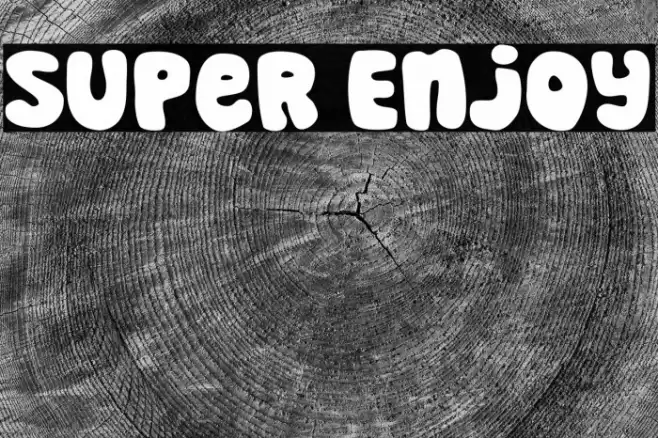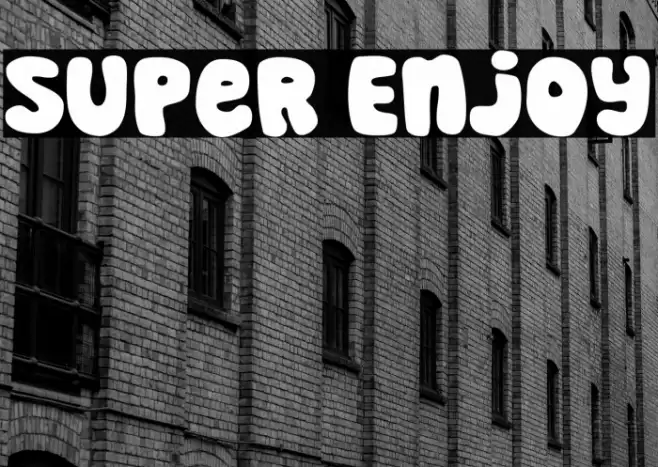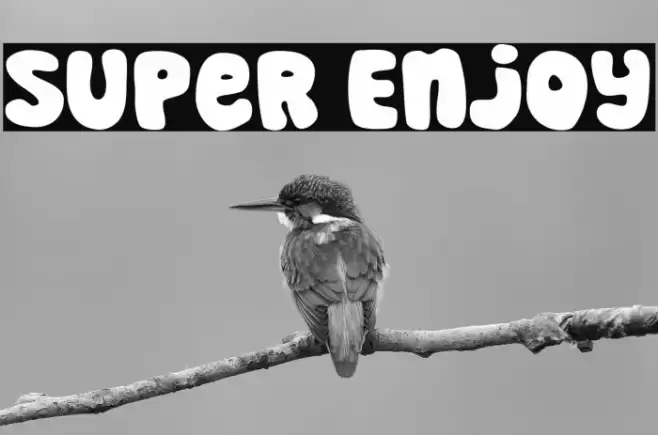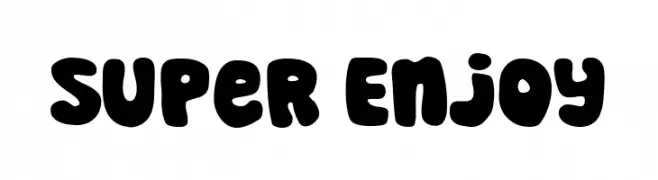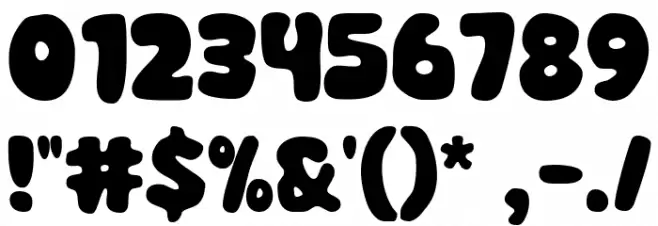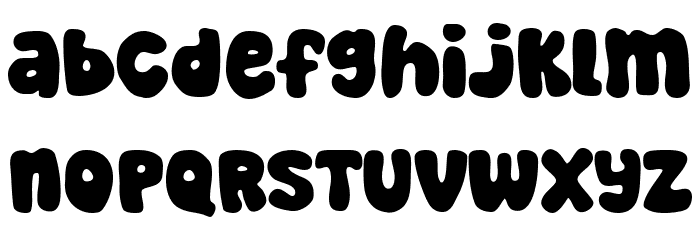
Super Enjoy Font
Super Enjoy Description
This playful and bold font features thick, rounded characters that exude a sense of fun and whimsy. The letters are uniformly heavy, with a consistent stroke width that gives them a chunky appearance. The rounded edges and lack of sharp angles contribute to a friendly and approachable feel. The font includes both uppercase and lowercase letters, numbers, and a variety of special characters, making it versatile for different uses. Its bold presence makes it ideal for grabbing attention, while the smooth curves ensure readability. The overall design is reminiscent of retro styles, yet it maintains a modern appeal through its simplicity and boldness.
A bold, playful font with thick, rounded characters and a whimsical style from Uncategorized fonts.
- Font: Super Enjoy
- Proposed Projects: Ideal for children's books, playful branding, posters, and any project requiring a fun and bold statement.
- Overall Style: Playful, Retro, Modern